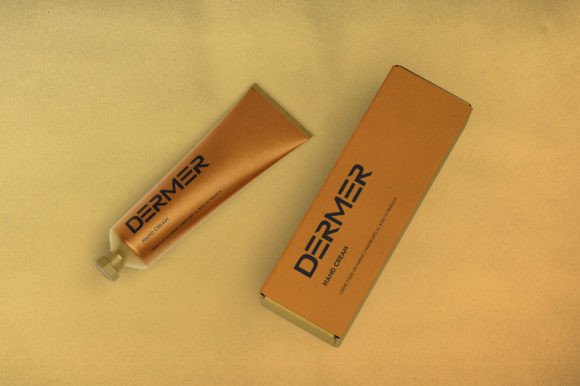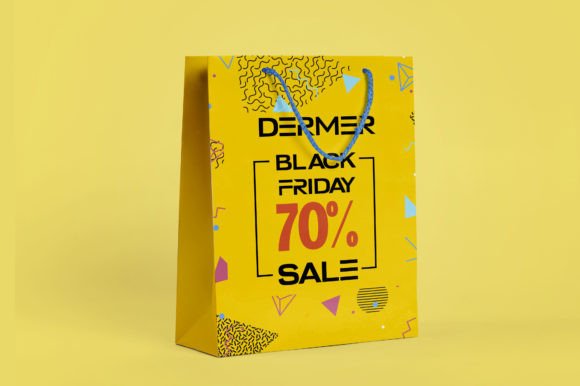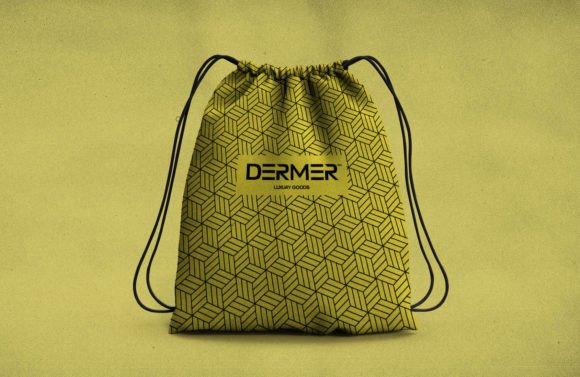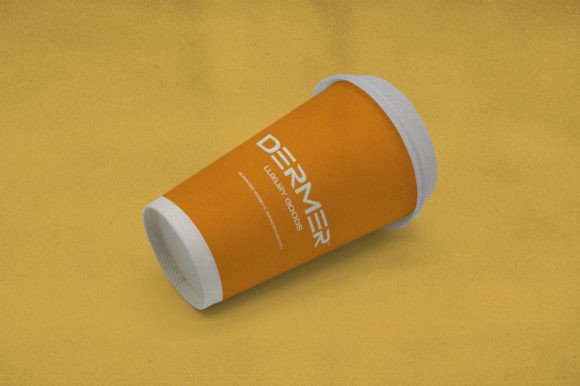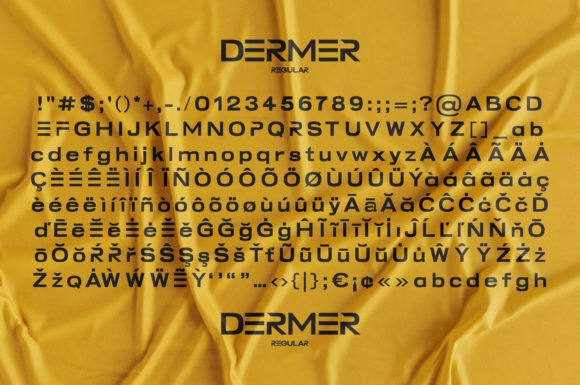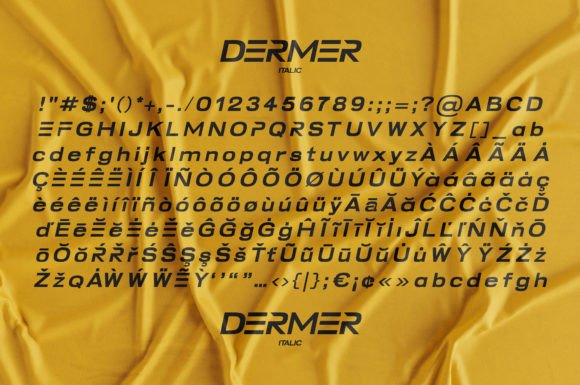
Introducing Dermer Font: The Ultimate Sans Serif Display Font for Designers and Crafters
Are you tired of using the same old fonts in your designs? Look no further! Dermer Font is a game-changing, minimalist, elegant, and wide sans serif typeface that’s perfect for designers and crafters looking to make a statement. Its bold appearance and wide glyph construction make it an excellent choice for display fonts that demand attention.
What Makes Dermer Font Stand Out?
Dermer Font boasts a unique combination of characteristics that set it apart from other sans serif fonts. Its minimalist design ensures that your message is conveyed clearly and concisely, while its elegant style adds a touch of sophistication to your designs. The wide glyph construction provides a sense of grandeur, making it perfect for display fonts that need to grab attention.
Perfect for a Wide Range of Design Themes
Dermer Font is an incredibly versatile font that can be used in a variety of design themes, including:
- Packaging Design: Make your product stand out on store shelves with Dermer Font’s bold and eye-catching design.
- Cosmetics: Add a touch of elegance to your beauty brand with Dermer Font’s sophisticated style.
- Fabrics: Create stunning textile designs with Dermer Font’s unique and captivating aesthetic.
- Print-on-Demand (POD): Use Dermer Font to create eye-catching designs for your POD products, from t-shirts to mugs.
Why Choose Dermer Font?
There are many reasons why Dermer Font is the perfect choice for designers and crafters:
- Attention-Grabbing: Dermer Font’s bold appearance ensures that your designs will grab attention and leave a lasting impression.
- Versatile: Use Dermer Font in a variety of design themes and applications, from packaging to POD.
- Elegant: Add a touch of sophistication to your designs with Dermer Font’s elegant style.
- Easy to Read: Despite its bold appearance, Dermer Font remains easy to read, even at smaller sizes.
Tips for Using Dermer Font
To get the most out of Dermer Font, follow these tips:
- Use it as a Display Font: Dermer Font is perfect for headlines, titles, and other display text.
- Experiment with Colors: Try pairing Dermer Font with bold colors to create a striking design.
- Mix and Match: Combine Dermer Font with other fonts to create a unique and visually appealing design.
Dermer Font is a powerful tool for designers and crafters looking to create stunning designs that grab attention. Its unique combination of minimalist, elegant, and wide sans serif characteristics makes it perfect for a wide range of design themes. Whether you’re working on packaging design, cosmetics, fabrics, or POD, Dermer Font is the perfect choice. So why wait? Try Dermer Font today and take your designs to the next level!
With Dermer Font, you can confidently create designs that leave a lasting impression. Its versatility, elegance, and attention-grabbing style make it an excellent addition to any designer’s toolkit. So go ahead, get creative, and see what amazing designs you can create with Dermer Font!